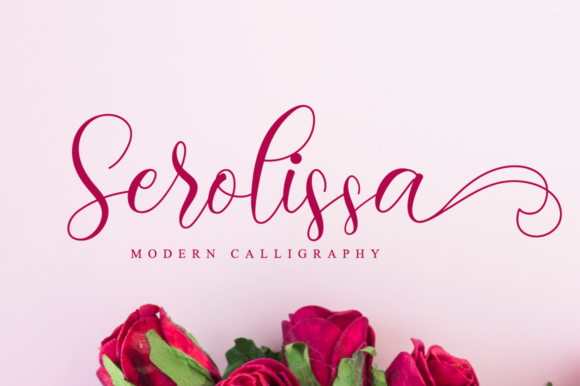
Behold Serolissa, a mesmerizing script font family that will bring your creative visions to life. Immerse yourself in the beauty of its delicate strokes, elegant flow, and perfectly balanced characters. With Serolissa, your designs will dance with grace and sophistication.
Unleash your creativity with Serolissa's extensive character set, effortlessly accessible through PUA encoding. Explore a world of glyphs, swashes, and stunning alternates, each meticulously crafted to enhance your designs. Let Serolissa's varying baseline and smooth lines ignite your imagination, creating captivating compositions that leave a lasting impression.
Picture Serolissa's enchanting presence gracing your photo website, intertwining harmoniously with your captivating images. Its ethereal essence will elevate your photos, transforming them into captivating masterpieces. Let Serolissa's delicate touch add a touch of elegance to your branding, creating a visual identity that exudes professionalism and sophistication.
Serolissa's versatility extends beyond photo websites and branding. Its timeless beauty seamlessly complements wedding invitations, greeting cards, logos, posters, and social media graphics. Let Serolissa's graceful curves and elegant flourishes elevate your designs, captivating your audience with its undeniable charm.
Embrace the beauty of Serolissa, a font family that embodies creativity, elegance, and versatility. Experience the joy of crafting designs that radiate with sophistication and charm. Let Serolissa be your artistic muse, guiding you to create visual masterpieces that leave an unforgettable impression.